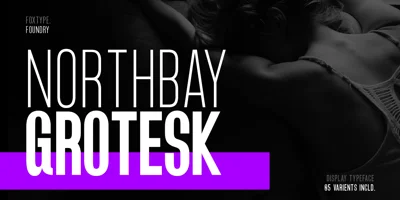
North Bay Grotesk Font
North Bay Grotesk Font is perfect for modern branding projects, minimalist web design, corporate identity systems, tech startup logos, editorial layouts, mobile app interfaces, architectural presentations, contemporary magazine designs, and clean advertising campaigns.
What makes North Bay Grotesk Font exciting is its perfect balance between geometric precision and humanist warmth. This contemporary sans-serif typeface embodies modern design principles with its clean lines, optimal spacing, and exceptional readability across all platforms. The font's sophisticated simplicity makes it an ideal choice for brands seeking to communicate professionalism, innovation, and forward-thinking values in today's digital landscape.
The North Bay Grotesk Font family includes comprehensive weight variations ranging from ultra-light to black, each featuring both regular and italic styles. The complete family offers designers nine distinct weights with matching obliques, providing extensive flexibility for creating sophisticated typographic hierarchies. Additional features include extended character sets, multilingual support, and carefully crafted numerals for professional applications.
Whether you're developing corporate communications, digital interfaces, or editorial content, North Bay Grotesk Font delivers unmatched versatility and visual clarity. Its neutral yet distinctive character makes it suitable for both headline applications and extended reading, ensuring optimal user experience across print and digital media. The font's contemporary aesthetic appeals to modern audiences while maintaining timeless design principles that ensure long-lasting brand relevance.